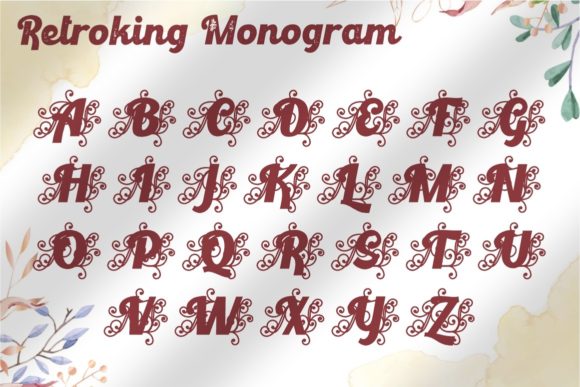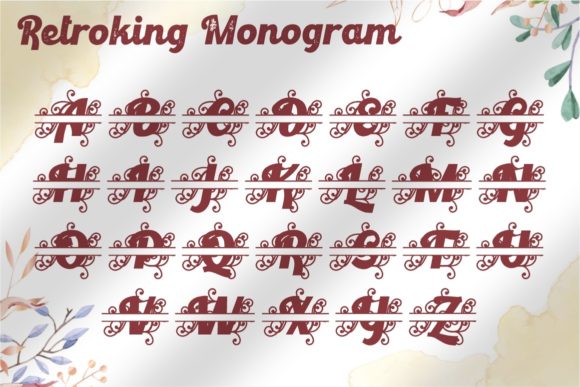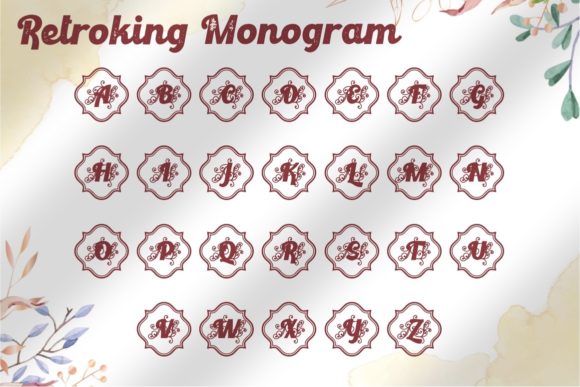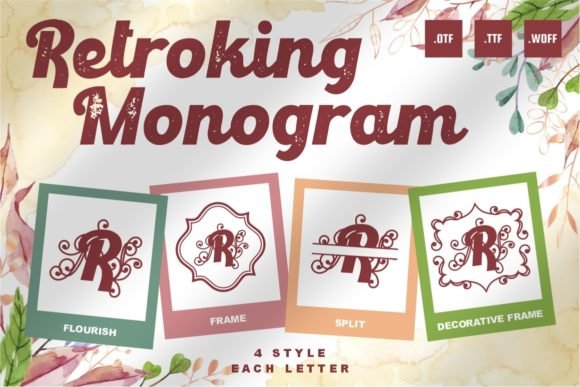
Introduction to Retroking Monogram Font
Retroking Monogram is a thick lettered decorative font.
This font is neatly crafted and highly detailed Whatever the topic, Retroking Monogram will be a wonderful asset to your font library, as it has the potential to enhance any creation.
Retroking Monogram Font offers exceptional quality and versatility, making it a valuable addition to your design toolkit. Whether you’re creating for personal projects or commercial use, Retroking Monogram Font delivers professional results.